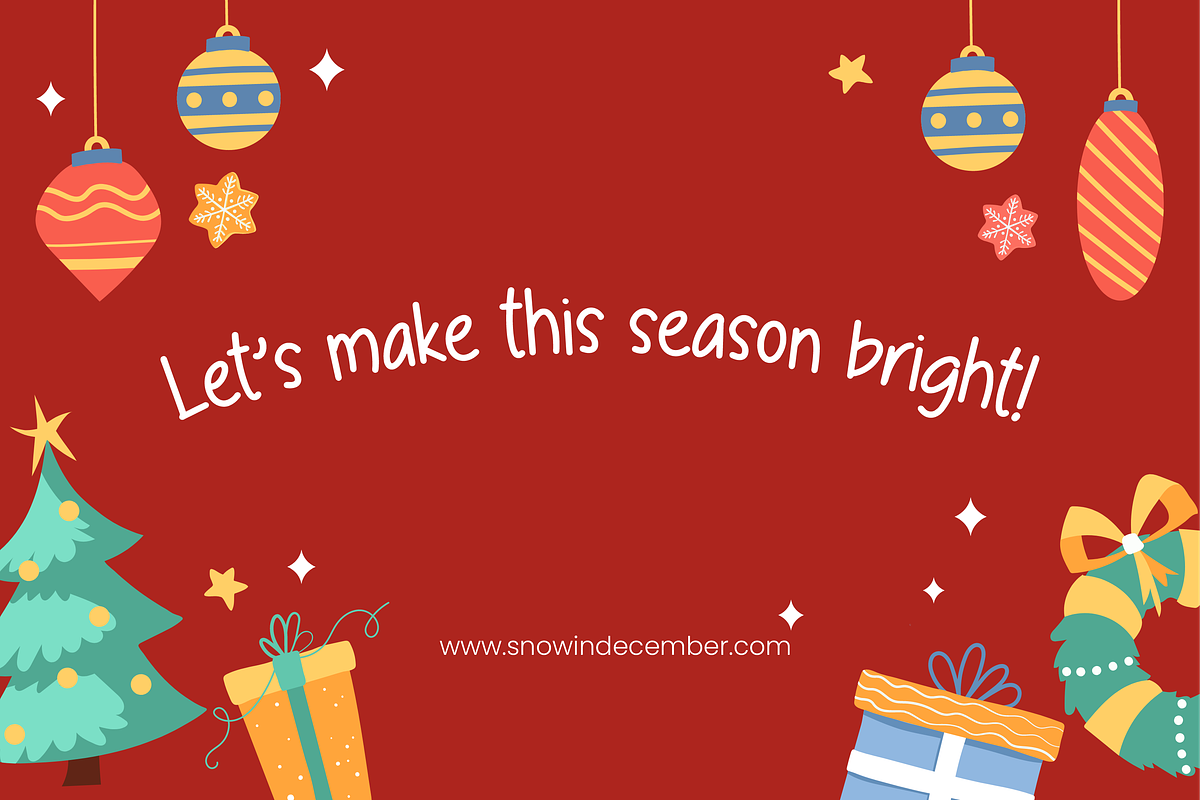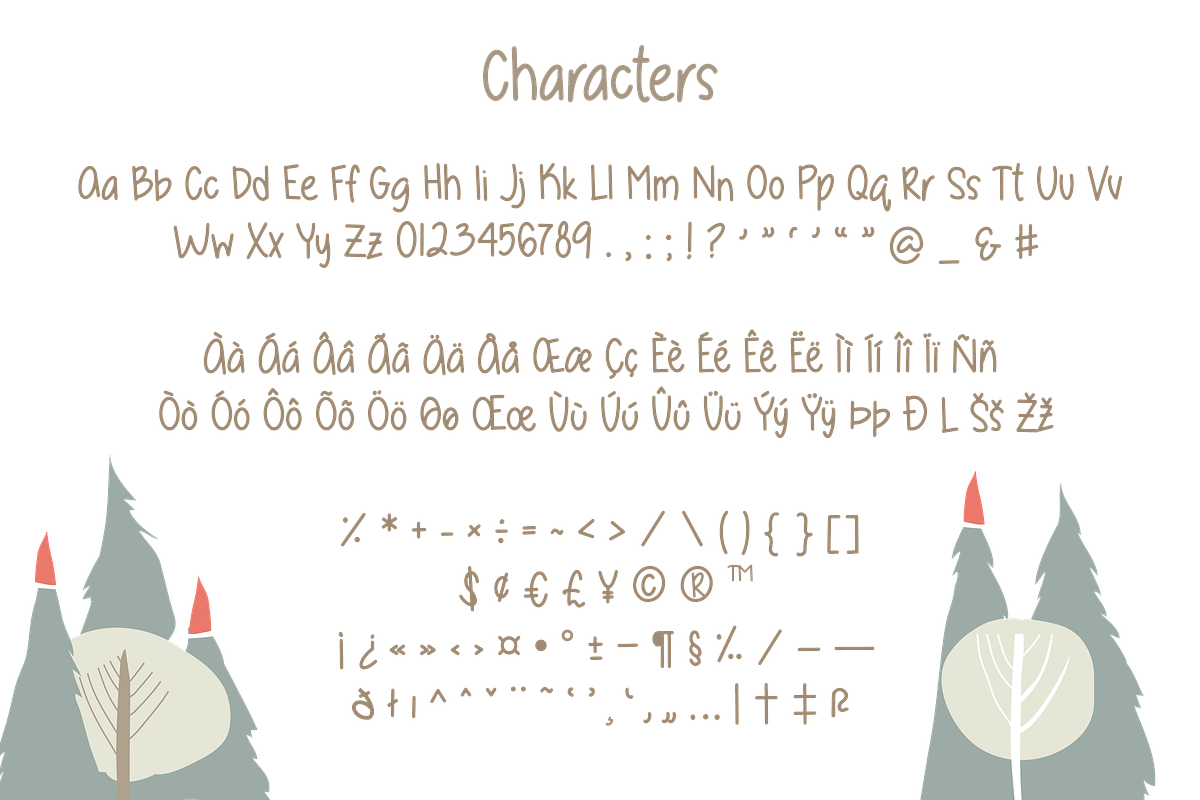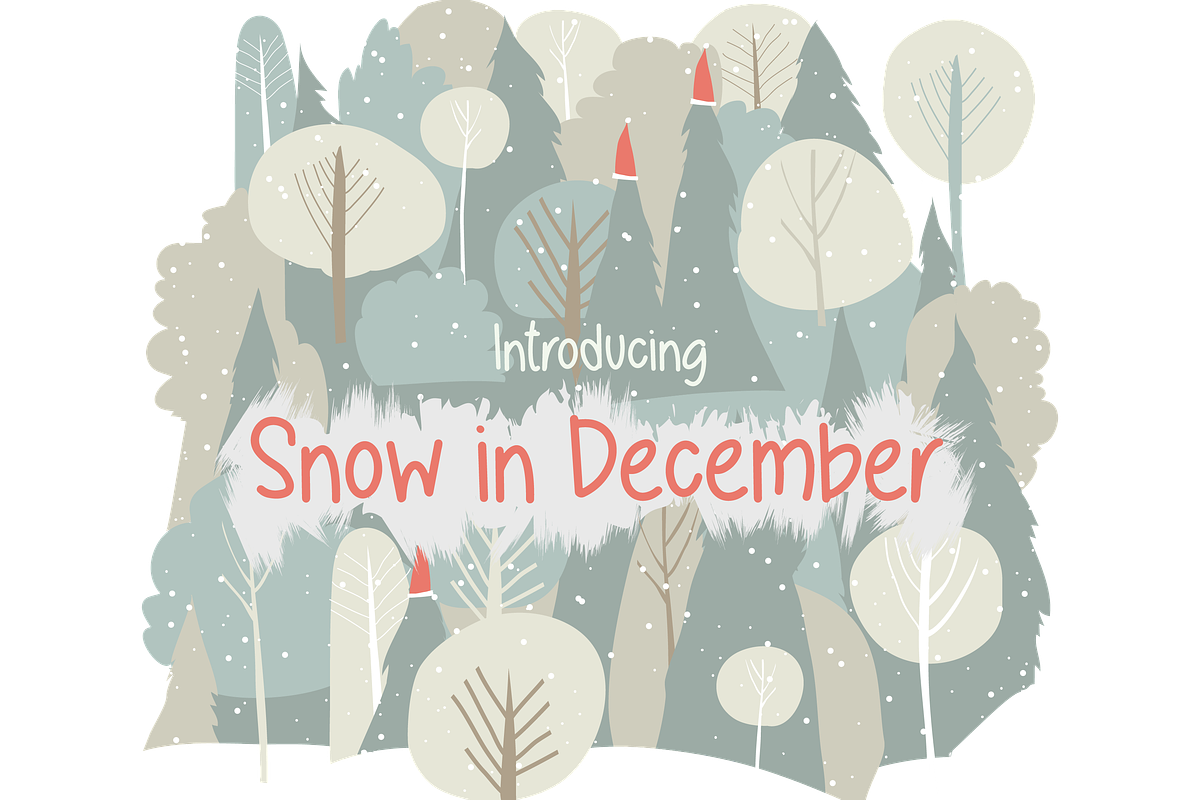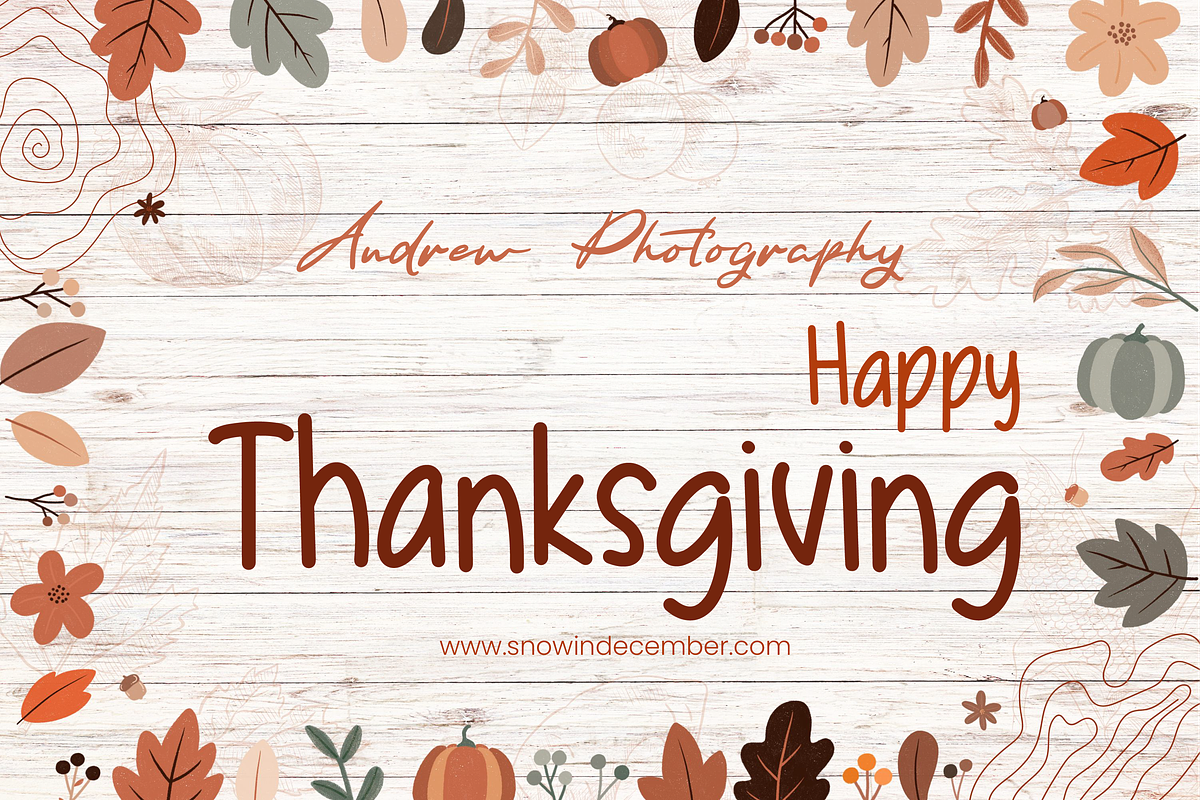
Snow in December
Snow in December is a cute, lovely handwritten font. It's casual charm and fun personality are perfect for creating cozy winter, snow, thanksgiving, and Christmas event. Snow in December is full of Latin characters.